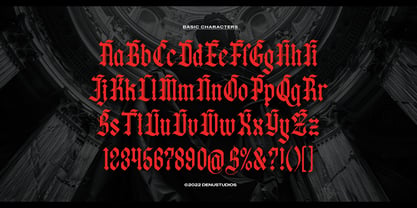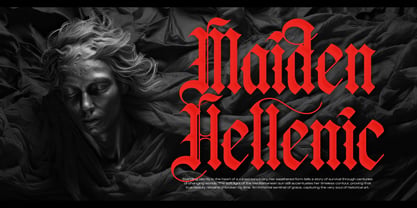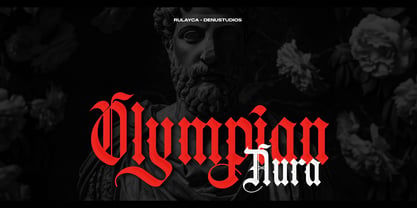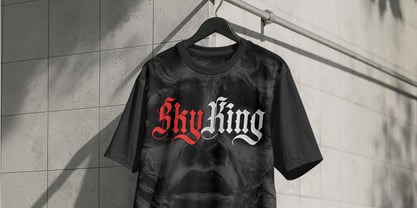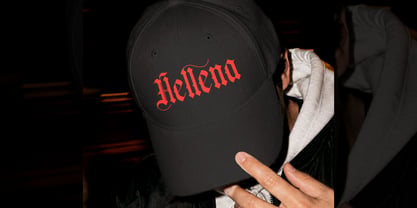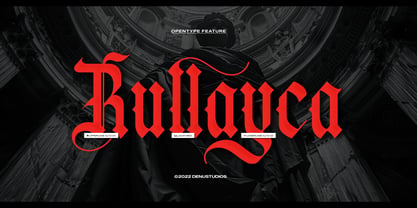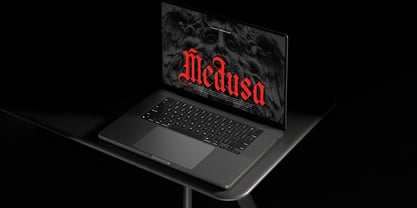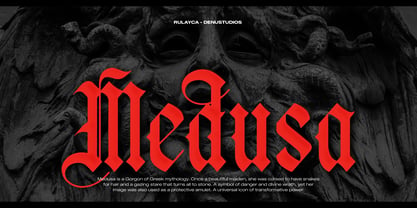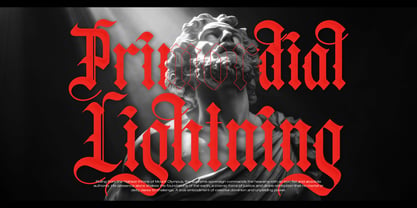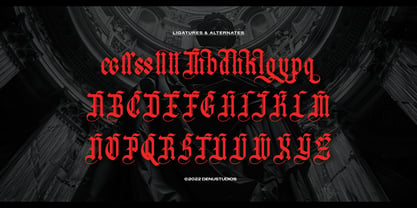
Rullayca
Rullayca | Blackletter Font, from Gracetypestudio, suitable for any projects such as: logos, branding projects, homeware designs, product packaging, mugs, quotes, posters, shopping bags, t-shirts, book covers, name card, invitation cards, greeting cards, label, photography, watermark, special events, and all your other lovely projects that need a Blackletter taste.